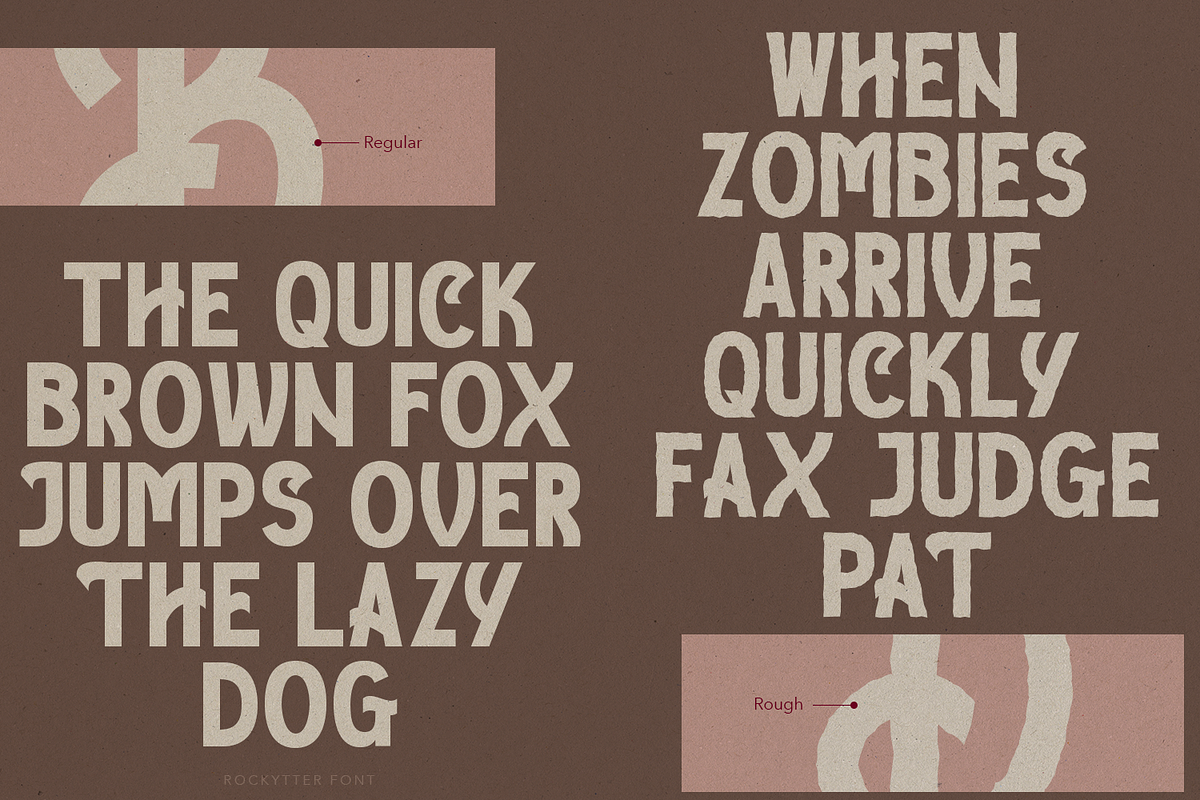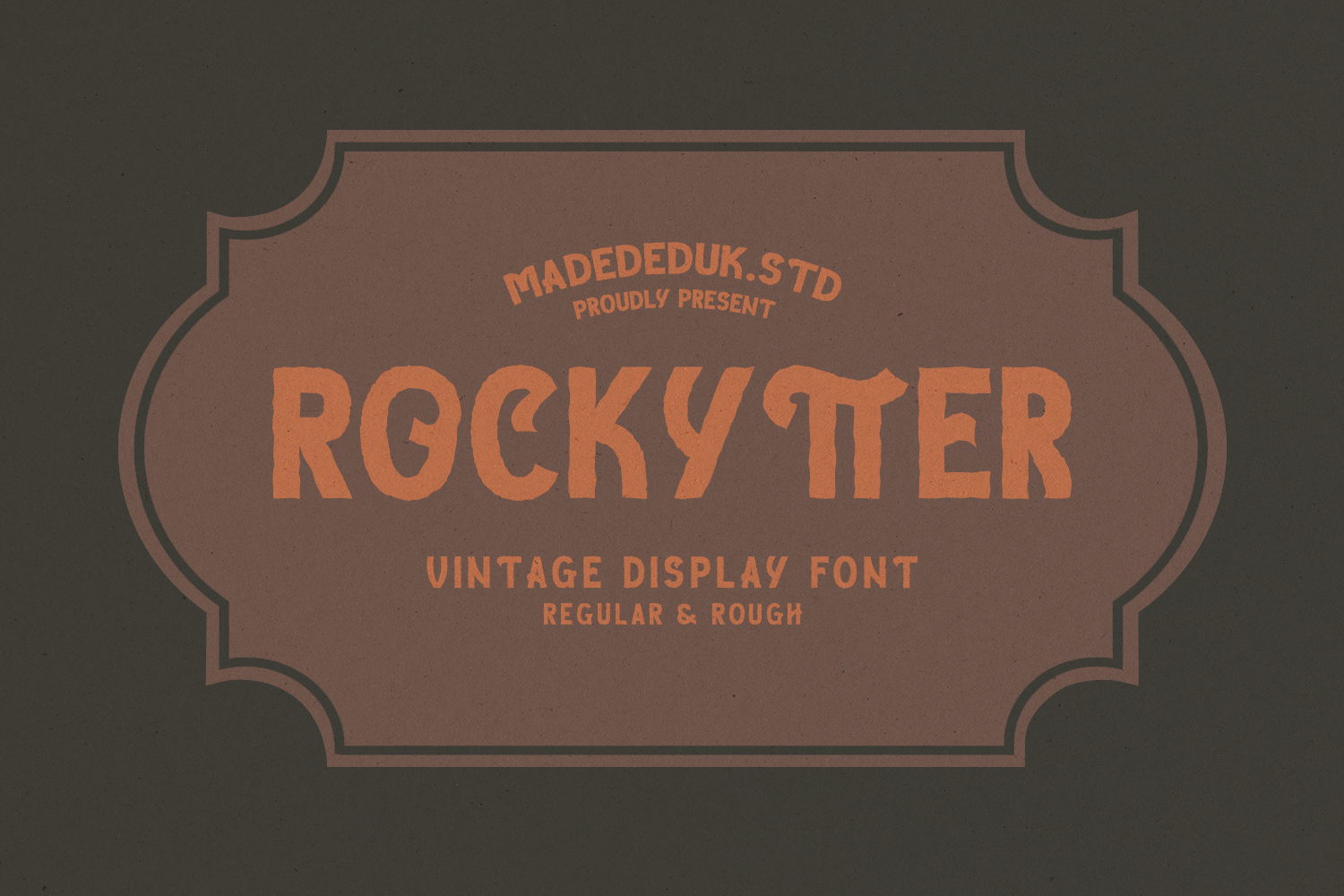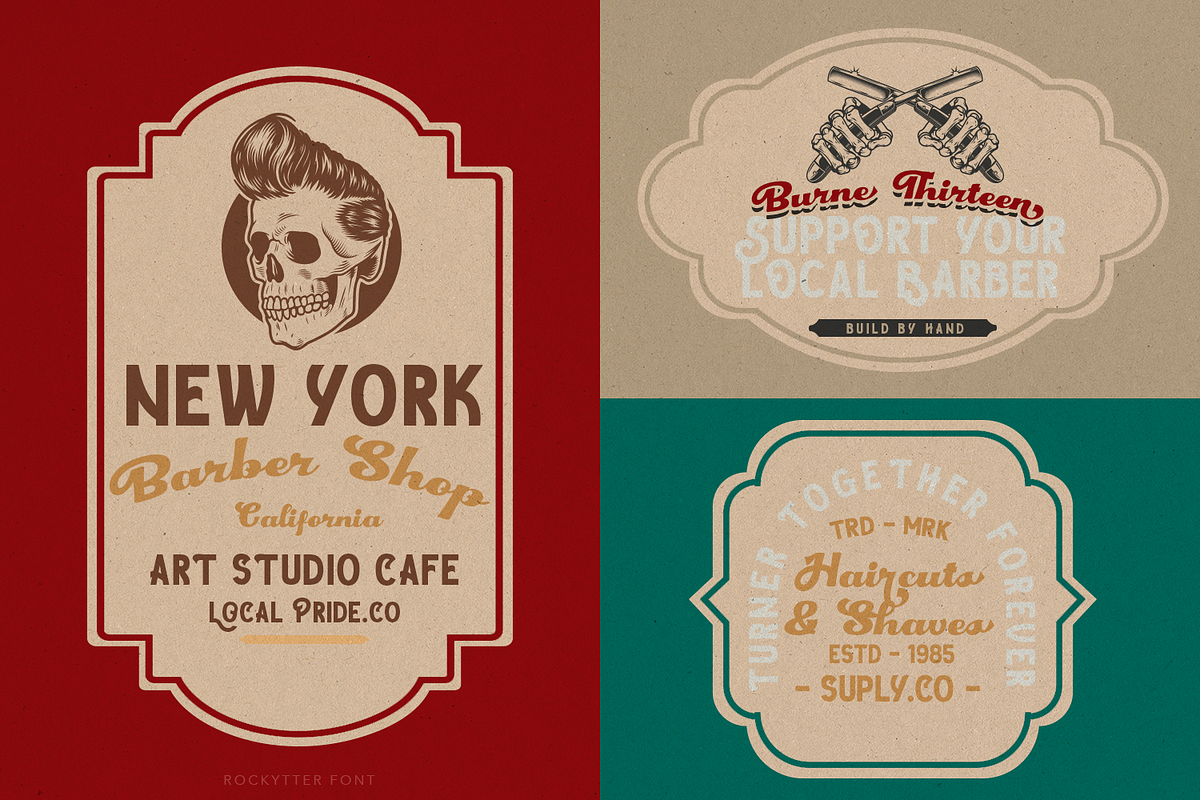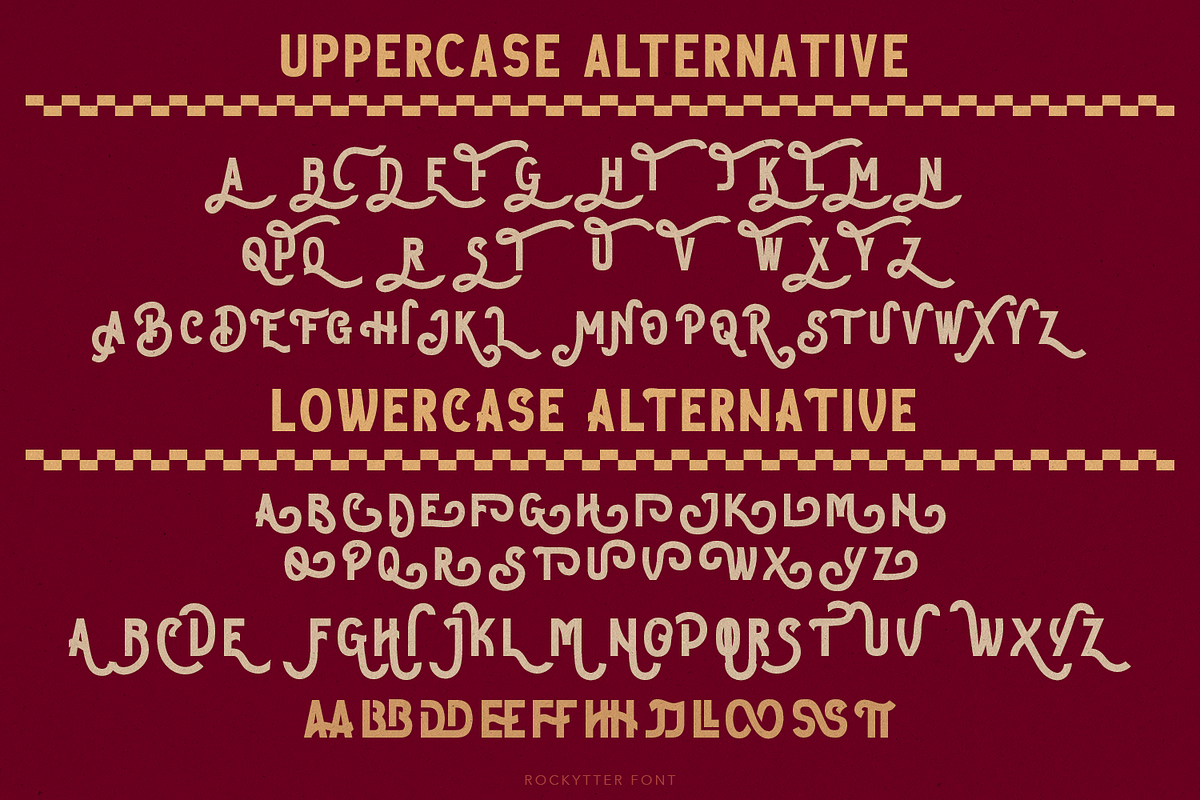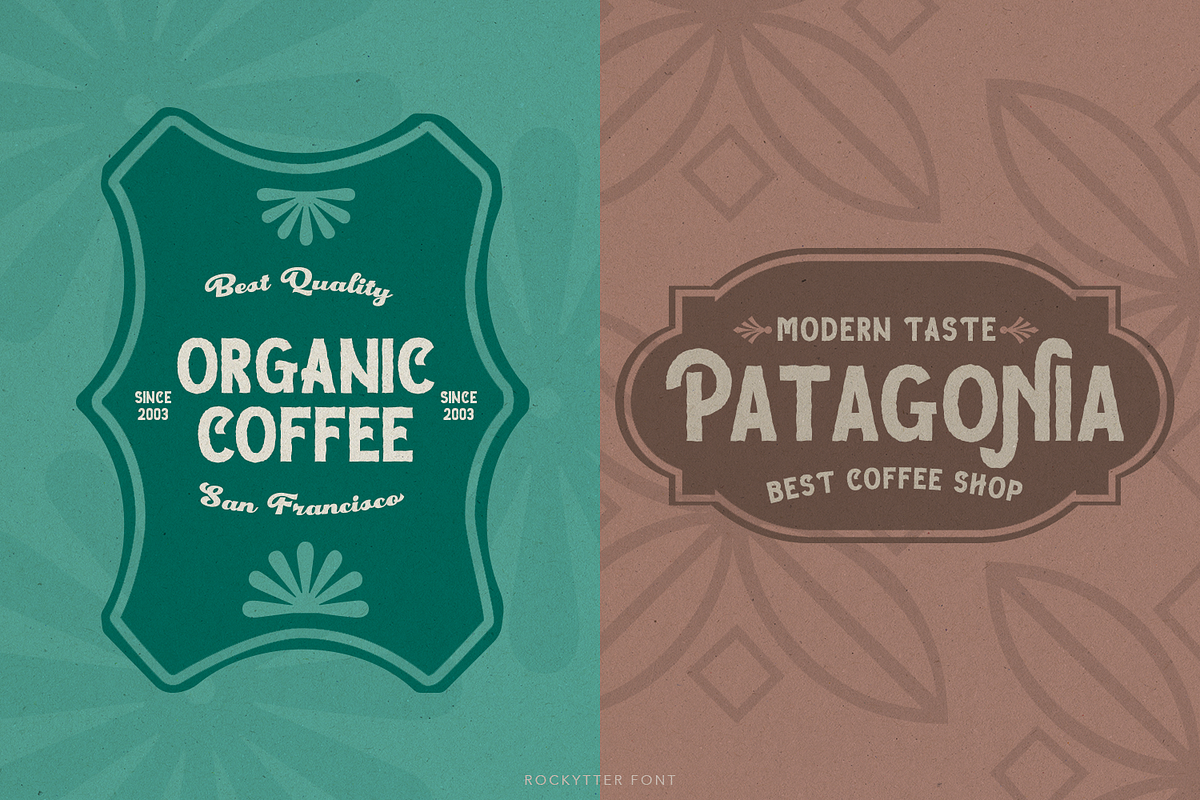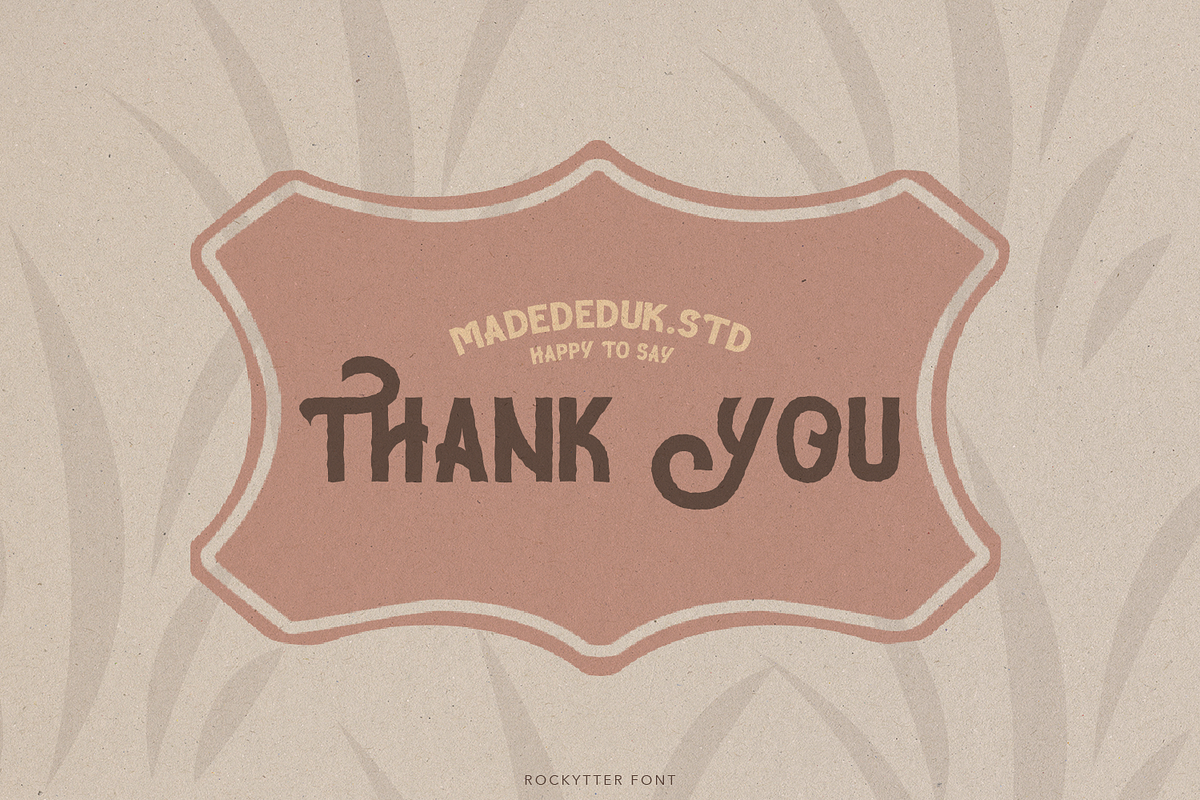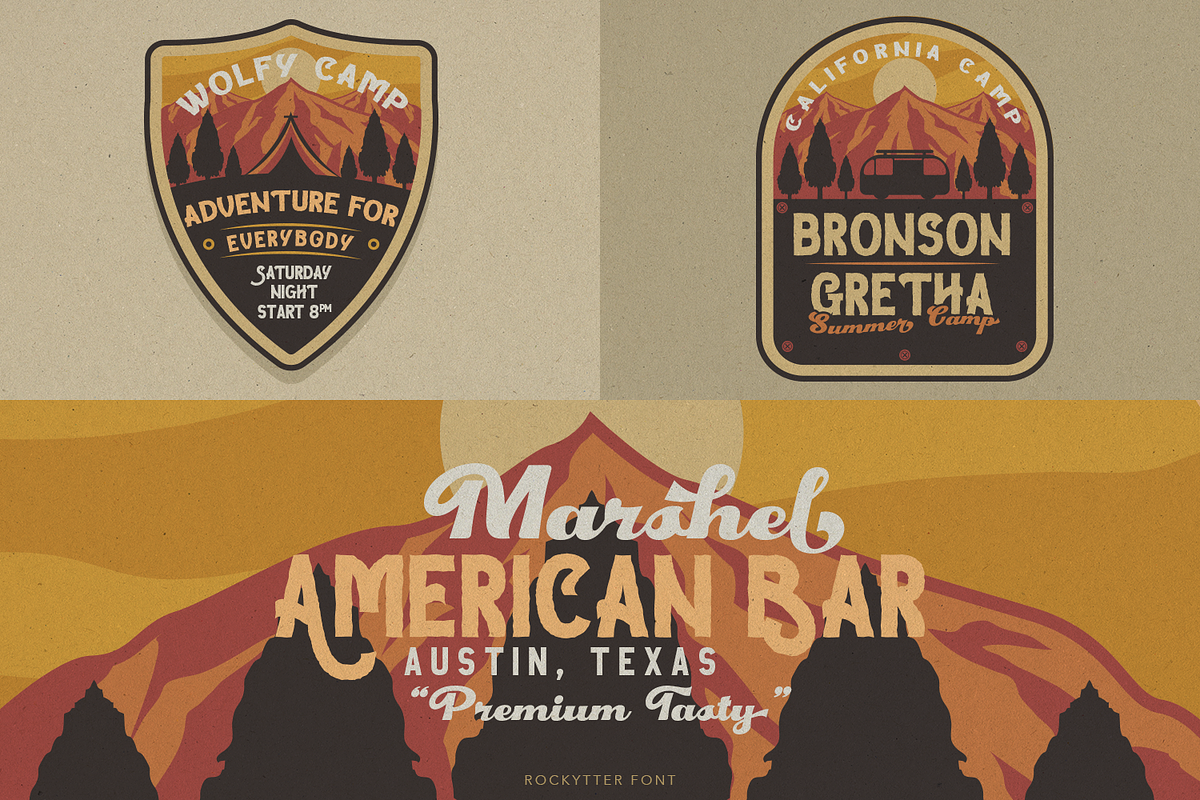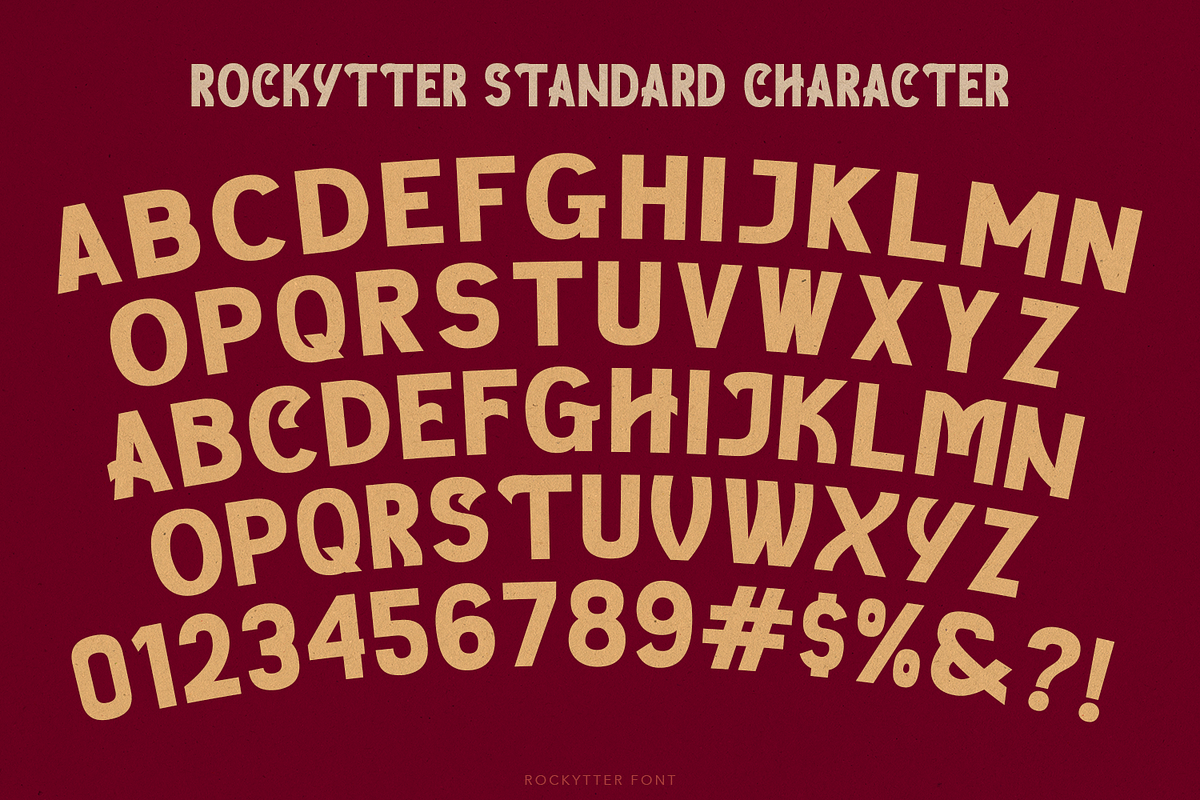
Rockytter Display Font
Really excited to introduce Rockytter is a vintage display font. It easily cooperates together and is perfect for creating the traditional style great for quotes and easily make a logotype or badge for your logo with this font. Come with special features regular and textured with a lot of alternative and ligature style.
Featured:
- International Glyphs
- Textured